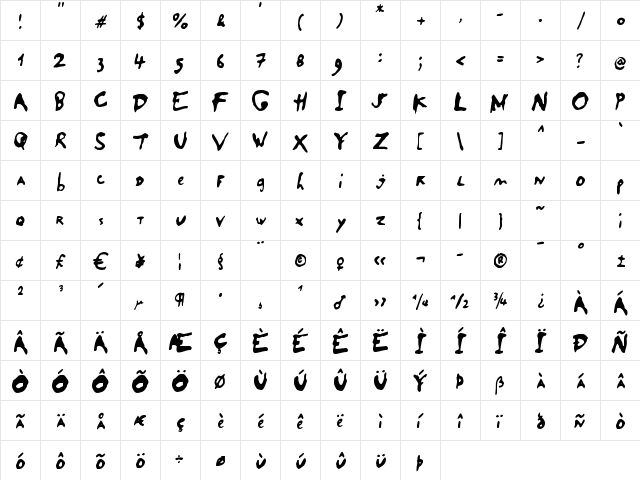
SaladeDeFruitsRaisin Regular
Design Context for SaladeDeFruitsRaisin Typeface
SaladeDeFruitsRaisin is a composed and adaptable typeface that performs quietly and consistently across a wide range of design contexts.